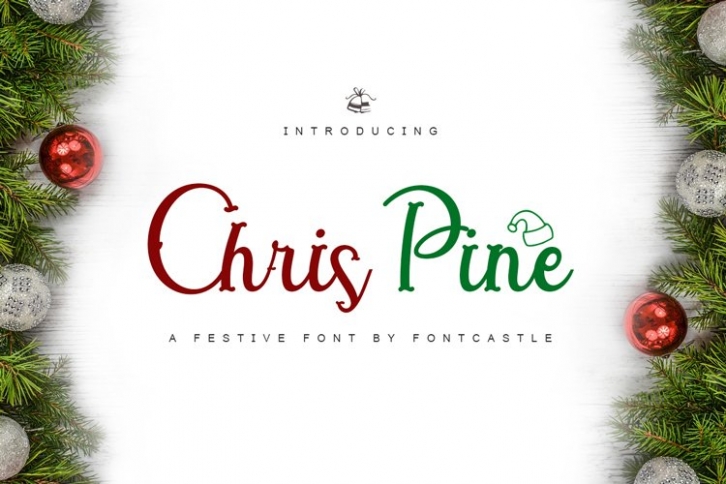
Chris Pine is a great font that was designed by Font Castle. Imagine the amount of combinations you can create using this font! The archive is 4.13 MB and it was released on November 10, 2020. Chris Pine looks beautiful on wedding invitations, greeting cards, logos, posters, labels, t-shirt designs, logos, business cards and is perfect for use in ink or watercolor works, fashion, magazines, packaging and food menus, children's books and more!